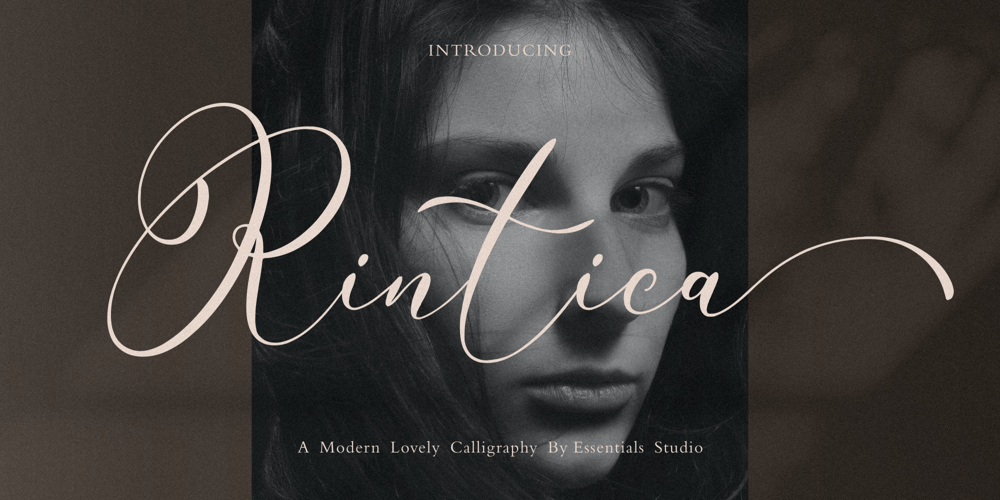
Rintica
Rintica font
Rintica Font Family was designed by Sulthan Mada Maulana Tsani and published by Essentials Studio. Rintica contains 1 styles and family package options. introducing by Essentials StudioProudly Present, RinticaMindlight Is a A Modern Handwritten Script FontMindlight is perfect for product packaging, branding project, megazine, social media, wedding, or just used to express words above the background.